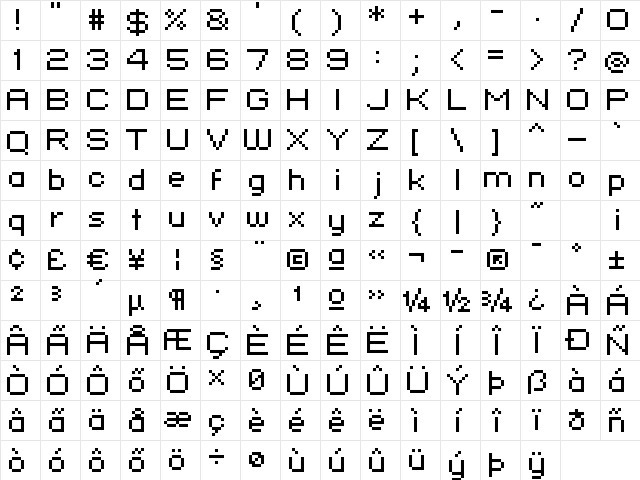
standard 07_52 Regular Free Font
standard 07_52 Regular
Designer: Craig Kroeger
Design Context for standard 07_52
standard 07_52 is a composed and adaptable typeface that performs quietly and consistently across a wide range of design contexts.